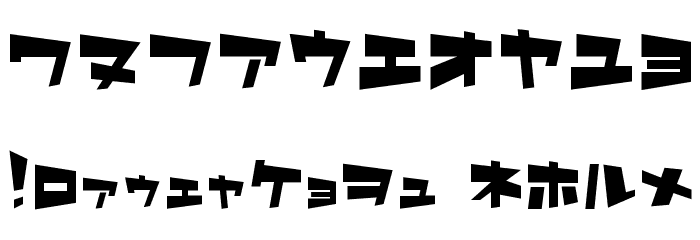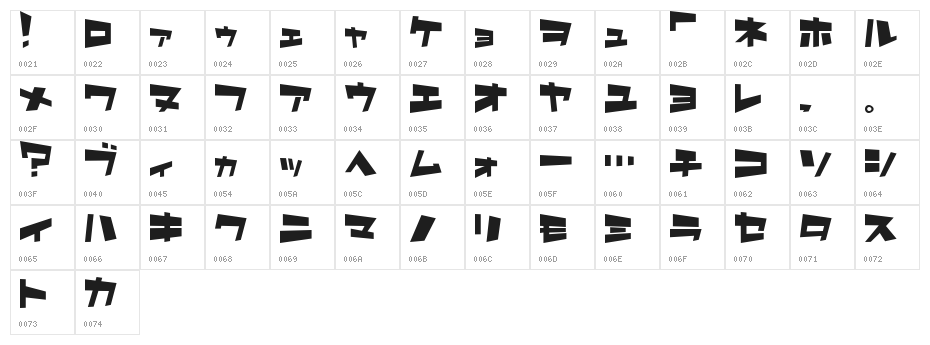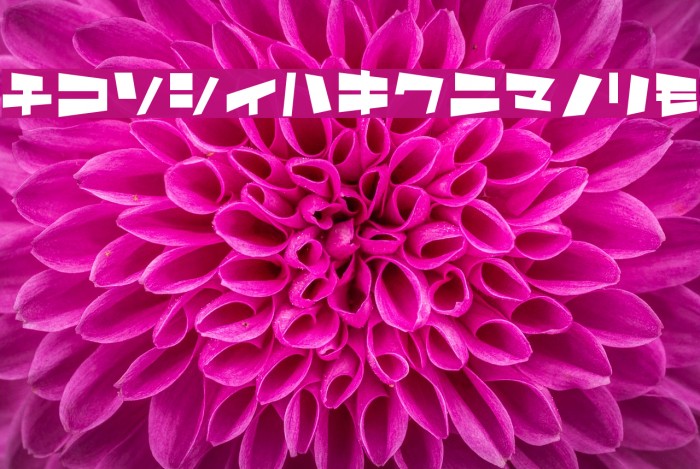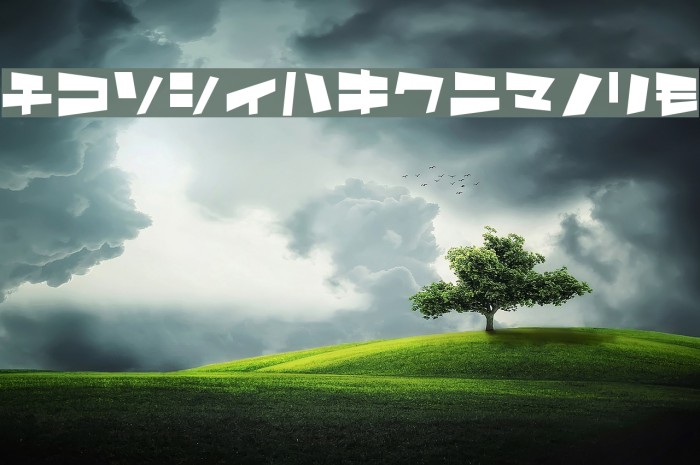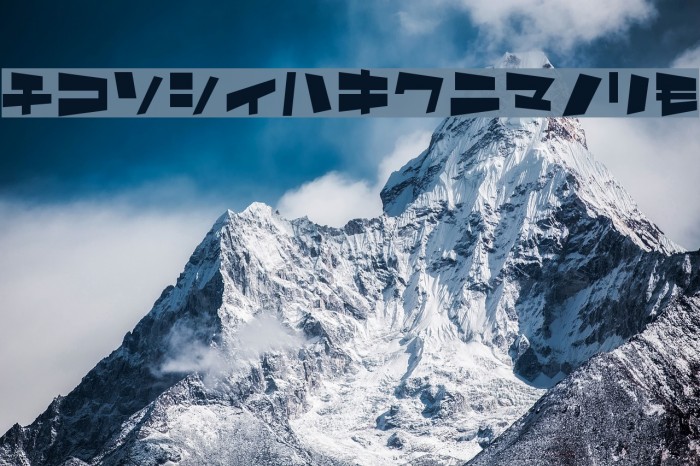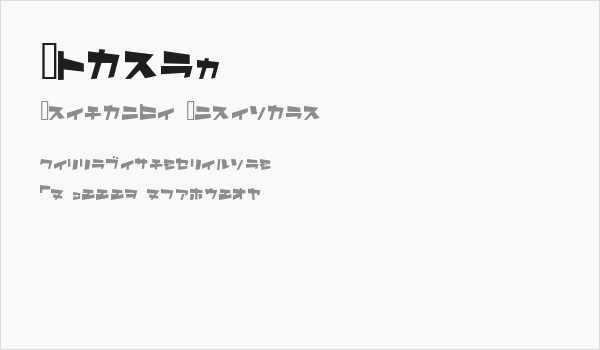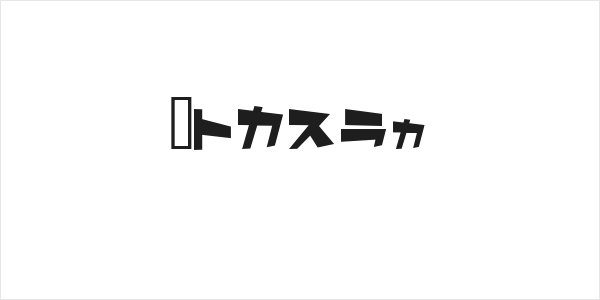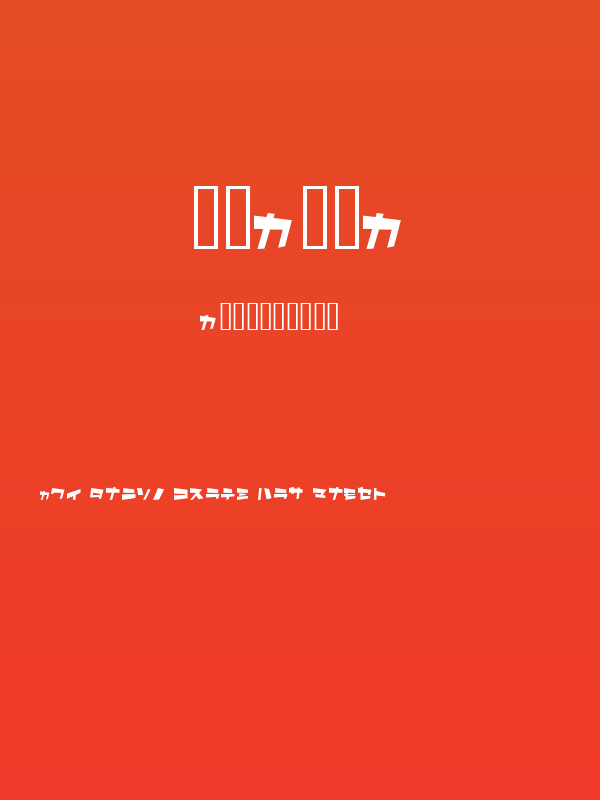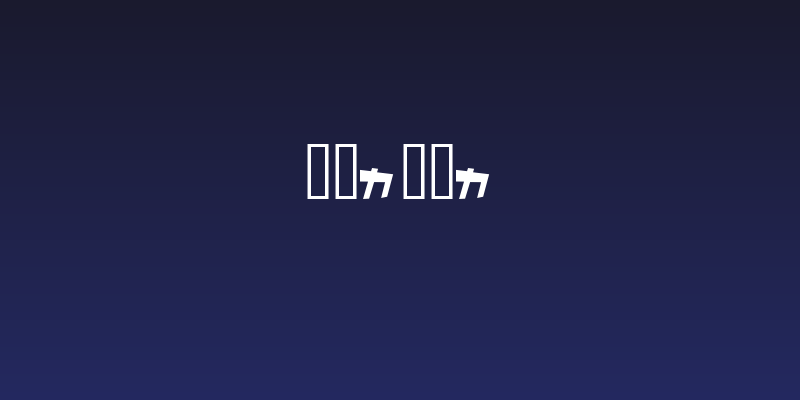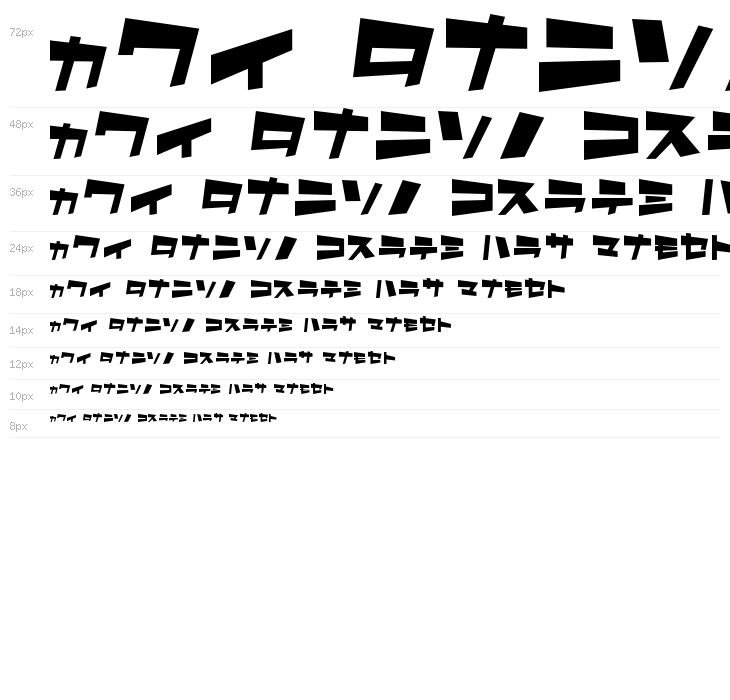
AstroT Font
AstroT Description
This font features a bold and dynamic style with a distinctly futuristic and angular design. The characters are constructed with sharp, geometric lines that give them a sense of movement and energy. The font's unique structure makes it stand out, with each letter having a slightly tilted orientation, adding to its dynamic appearance. The strokes are thick and consistent, providing a strong visual impact. This font is ideal for projects that require a modern and edgy aesthetic, capturing attention with its bold presence.
| Proposed Projects | Perfect for sci-fi themed projects, video game titles, posters, and branding that requires a modern and edgy look. |